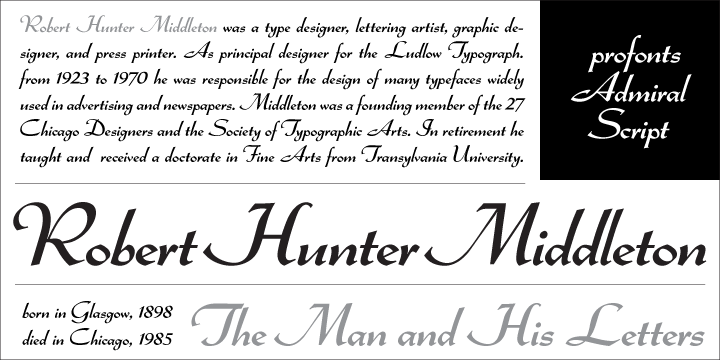
Admiral Script Font Free Download – Elegant Calligraphy with Nautical Flair
Set sail for stunning typography with Admiral Script Font Free Download, a sophisticated calligraphy font that blends classic elegance with maritime charm. Perfect for luxury invitations, nautical branding, and projects requiring refined hand-lettered beauty.
Why Admiral Script Stands Out
Fluid, Natural Strokes – Authentic hand-penned appearance
Nautical Elegance – Subtle maritime influence in letterforms
Multiple Alternates – Customize your perfect word combinations
Perfect Readability – Maintains clarity despite artistic flourishes
500+ Glyphs – Extensive character variations
Contextual Alternates – Automatic letter adjustments
Standard Ligatures – For flawless letter connections
Multilingual Support – Covers 30+ languages
Where Admiral Script Shines
1. Wedding Industry
Breathtaking invitation suites
Romantic place cards and menus
2. Luxury Branding
High-end cosmetic packaging
Premium beverage labels
3. Nautical Businesses
Yacht club branding
Maritime event promotions
4. Editorial Design
Magazine feature headlines
Book cover typography
Design Tip: Pair with simple sans-serifs for modern elegance, or with vintage engravings for classic appeal!